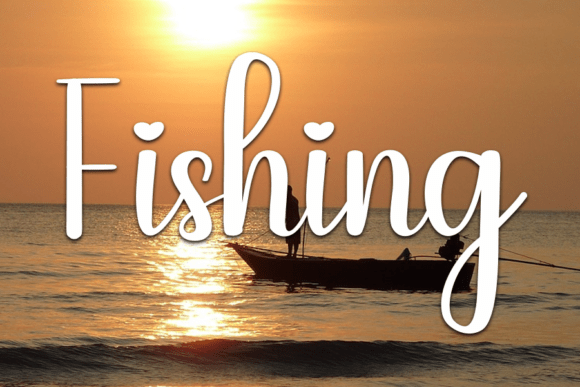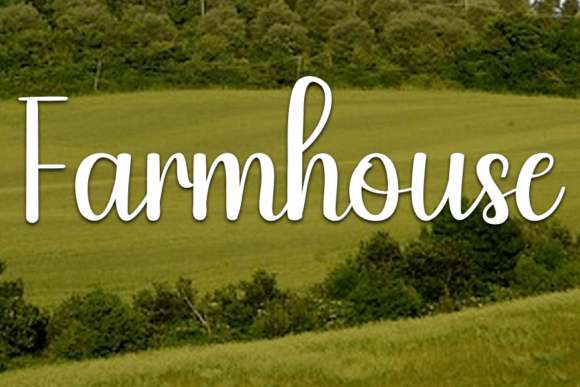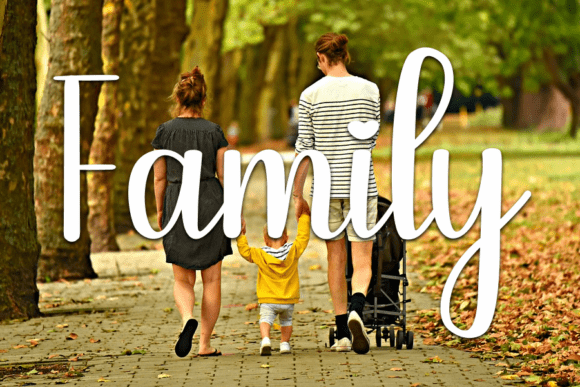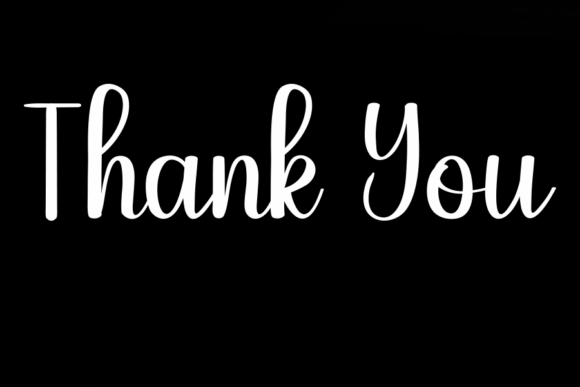
When Words Feel Like Handwritten Love
Have you ever stared at a blank piece of paper, trying to put your creative thoughts into words? Maybe it’s a birthday card for a loved one, a social media post to celebrate a milestone, or even a simple headline for a project. Whatever the occasion, the right words can evoke emotions and create a lasting impression.
That’s where the Birthday Font comes in – a simple yet versatile handwritten font designed to add a natural touch to your next project. This charming font is perfect for greeting cards, posters, and even digital designs, guaranteeing to make your words feel like handwritten love letters.
As a designer, you know how valuable a good font can be. The Birthday Font is a valuable addition to any design toolkit, allowing you to add a personal touch to your work while maintaining a professional look. With its wide range of applications, this font is sure to become a favorite among designers and non-designers alike.
Birthday Font Key Features
- Unique Characteristics: The Birthday Font features colorful and playful lettering, making it ideal for birthday cards, invitations, and other celebratory designs.
- Font Style: The font has a bold and cursive style, adding a touch of whimsy and fun to any design.
Birthday Font Review
First off, I think Birthday Font has some ✨ real charm going on. The playful, handwritten feel is perfect for adding a touch of whimsy to birthday invitations, cards, and even social media posts. The font is highly customizable, with options for color, size, and spacing that allow you to tailor it to your design needs.
- The font’s dynamic letterforms and varied line widths add visual interest and personality to text.
- Birthday Font is suitable for a wide range of design projects, from children’s birthday parties to adult celebrations.
- The font’s cursive feel makes it ideal for adding a personal touch to handwritten messages and signatures.
However, there are a few ⚠️ limitations to consider. One major drawback is that Birthday Font can be quite busy and overwhelming when used extensively. The font’s intricate details and flourishes can make it difficult to read, especially in smaller sizes or when used in large blocks of text.
Overall, I think Birthday Font is a great choice for adding a celebratory touch to your designs. While it may not be the best option for all projects, it’s a versatile and eye-catching font that’s sure to make a statement.
The Birthday Font is perfect for:
- Celebration invitations and party decorations.
- Personalized birthday cards and gifts.
- Wedding invitations and decorations.